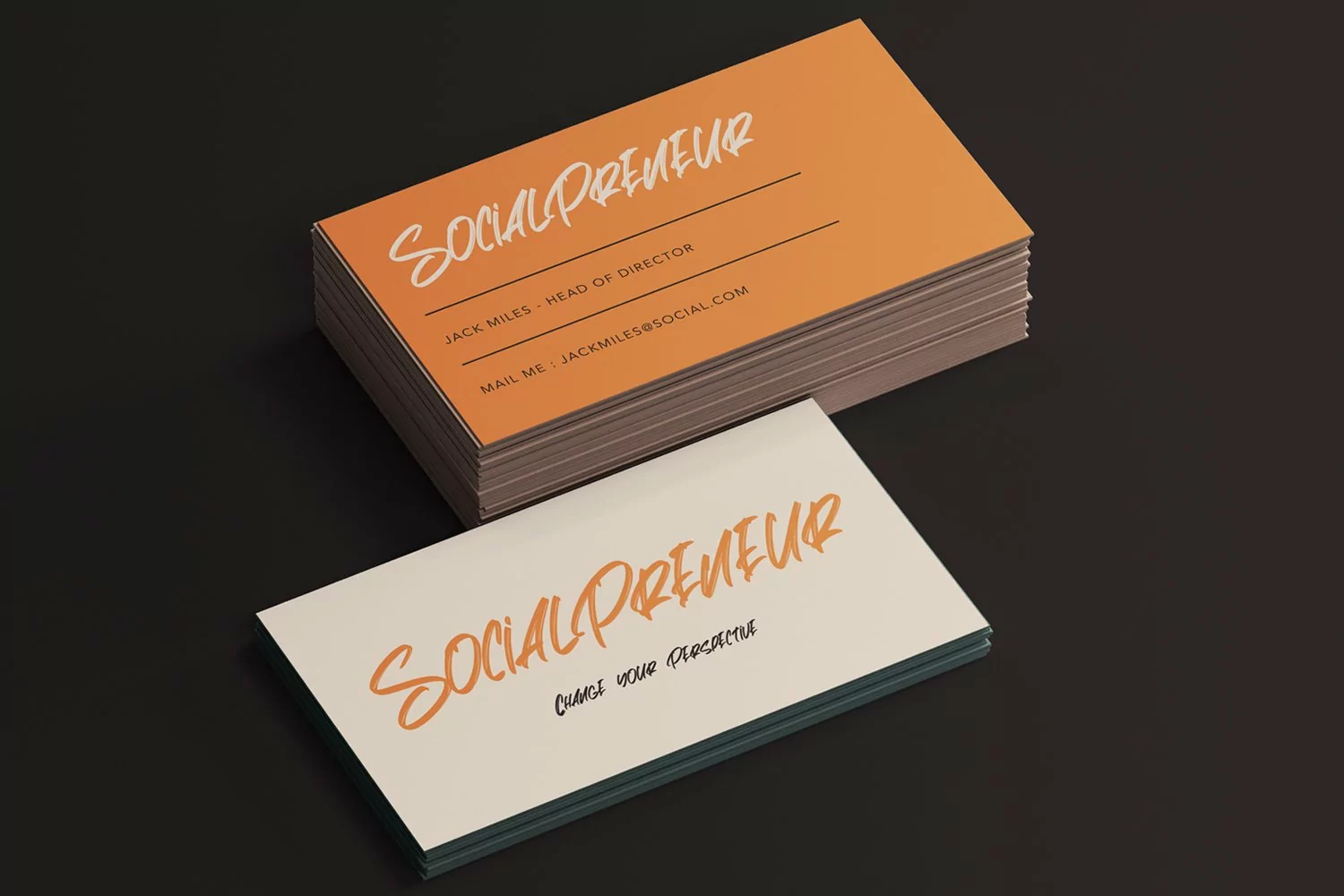
Naughty Country - Hand Lettered Brush Font that contain lowercase, uppercase, symbol, and also support multi language. There’s a lot ligatures in this font. This Font also comes with ligatures, alternates and many more. this font suitable for fashion, branding, catalog and other design what you want.
Naughty Country